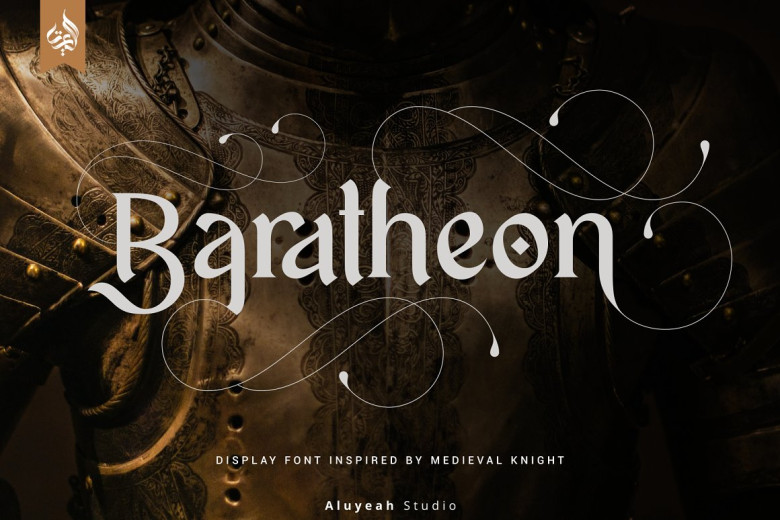
Baratheon Font
With Baratheon, Be ruler project. Patterned after Medieval Knights and given attention to detail This display font has its roots firmly on the medieval battlefield. Become a king or queen with Baratheon people Its strong curves and legibly shaped characters make it perfect for logo design, magazine mastheads and anything else where an extra trough of classic insouciance is required. It will definitely add a certain whiff of authenticity to any project.
Baratheon Display Font